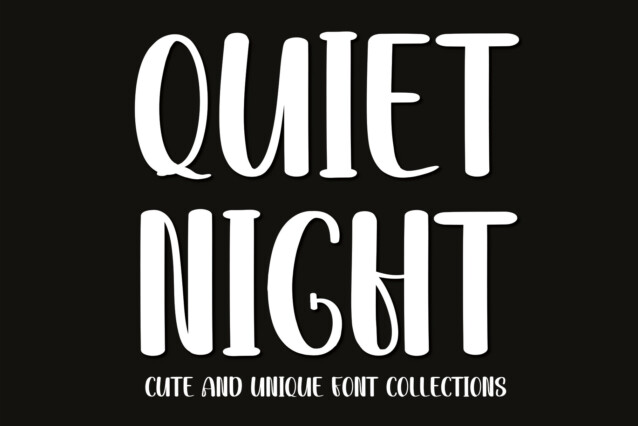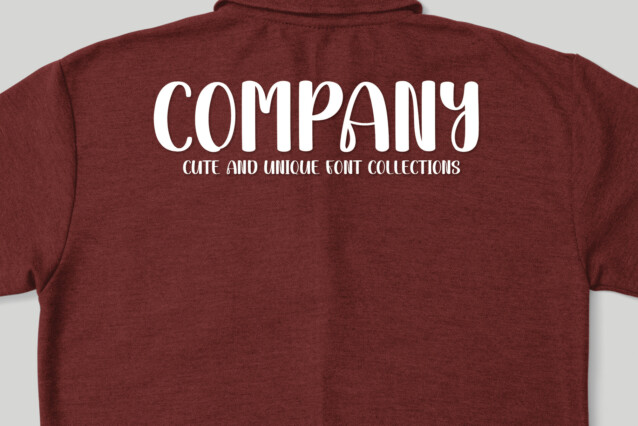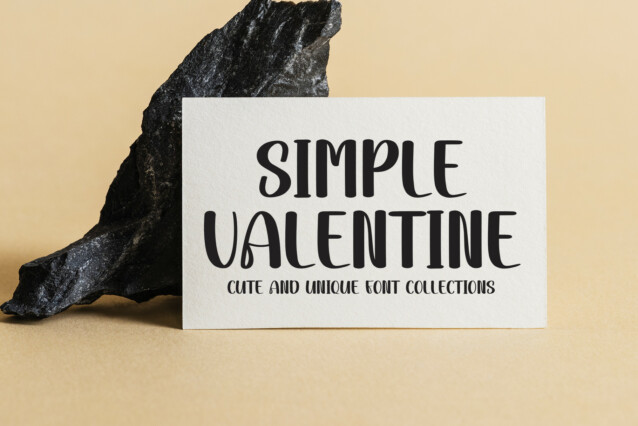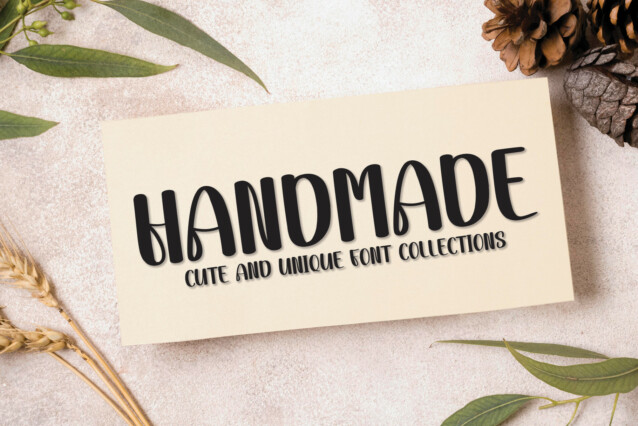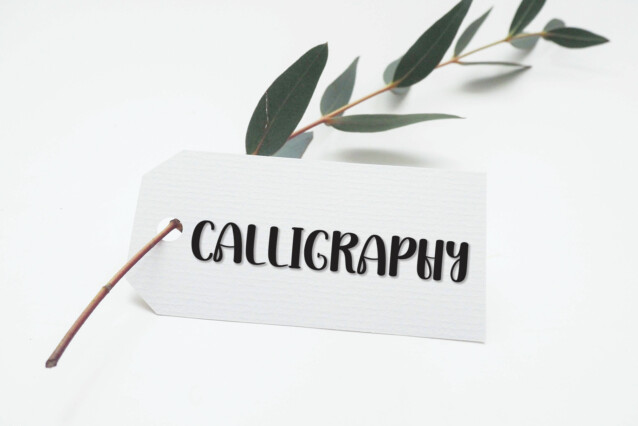
Quiet Night Display Font
Quiet Night Display Font is a cool and relaxed handwritten font. This versatile font has a wide spectrum of applications ranging from greeting cards to headlines and is guaranteed to add a neat and natural feel to your next project!